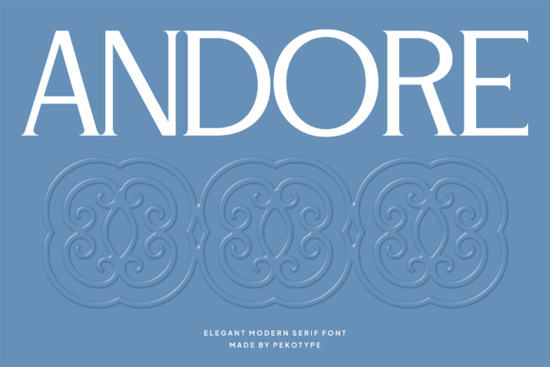
Looking for a serif font that feels both timeless and fresh? Andore Font is a modern serif typeface built to bring elegance and clarity to your designs. With its smooth curves and balanced letterforms, it strikes a nice balance between classic sophistication and contemporary simplicity perfect for projects where a polished, professional look matters.
What makes Andore Font stand out?
Unlike fonts that feel too rigid or overly ornate, Andore offers a relaxed yet refined presence. The subtle contrast in strokes and gentle transitions between thick and thin lines give it a natural rhythm that’s easy on the eyes. It works well at different sizes, from small text in menus to large headlines in branding materials.
You’ll find it especially useful when you want to convey trust, style, and attention to detail qualities that matter in everything from business logos to wedding invitations. Whether you’re designing a boutique packaging label or crafting a social media post with a premium feel, Andore adds quiet confidence without overpowering the message.
Where can you use Andore Font?
This versatile font fits into many design needs across different industries and creative hobbies:
- Branding & logos – Use it for company names or taglines that need a touch of grace.
- Invitations & event cards – Ideal for weddings, galas, or formal gatherings where tone matters.
- Menus & packaging – Gives restaurant menus or product labels a clean, upscale appearance.
- Editorial layouts – Works well in magazines, newsletters, or blog headers.
- Social media graphics – Helps create posts that feel intentional and stylish.
It also pairs beautifully with simpler sans-serif fonts, making it a great choice when you want contrast without chaos. Try pairing it with something like Asoga Font for a layered, thoughtful layout.
How does Andore fit into a broader design toolkit?
If you're already exploring serif fonts for your projects, Andore sits comfortably alongside others in the Creative Fabrica library. For example, if you love the bold structure of Gulder Radeon Font, you might appreciate how Andore offers a lighter, more fluid alternative. Or if you enjoy a slightly playful twist, Bremlin Italic Font brings flair but Andore keeps things grounded and elegant.
For those who lean toward minimalist design, Delbare Font shares a similar clean aesthetic but with sharper edges. Andore, by comparison, softens the impact with its rounded terminals and flowing strokes ideal if you want refinement without austerity.
Why designers choose Andore
It’s not just about looks. Many users appreciate how consistent and legible Andore remains across devices and print formats. You don’t have to worry about kerning issues or awkward spacing. The font includes extensive language support, so it handles multilingual text smoothly great for global brands or international events.